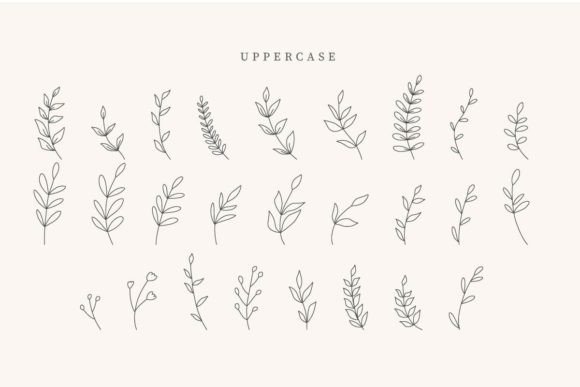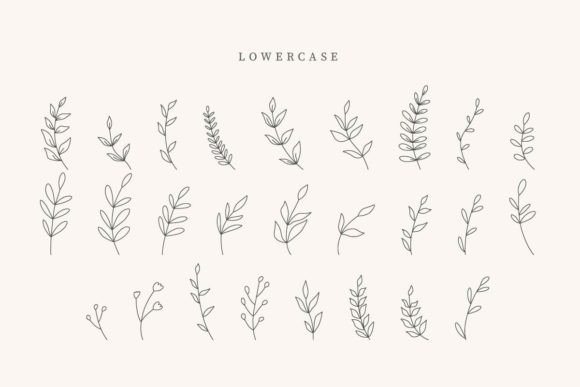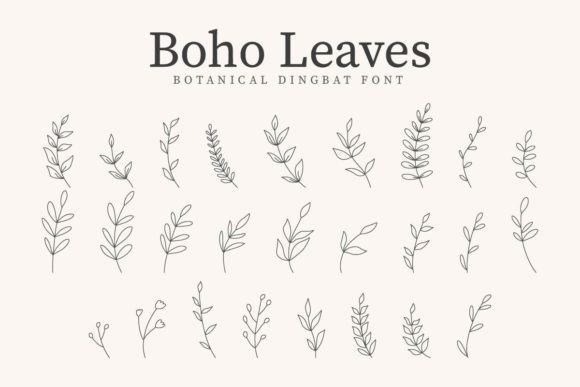
Unleash Your Inner Boho Chic with Boho Leaves Font
Have you ever found yourself rummaging through a vintage market, surrounded by lush greenery and the sweet scent of flowers, feeling inspired by the beauty of nature? That’s exactly the feeling you’ll want to evoke with your next creative project, and that’s where the Boho Leaves Font comes in.
This stunning botanical dingbat font is perfect for adding a touch of whimsy and romance to your designs. Whether you’re crafting wedding invitations, stickers, logos, or posters, the Boho Leaves Font is sure to bring your vision to life. As a designer, you know how valuable it is to have a versatile font that can elevate your projects and set them apart from the rest.
With the Boho Leaves Font, you’ll have endless possibilities for creating unique and eye-catching designs that showcase your personal style. So why settle for a generic font when you can add a touch of bohemian charm to your projects with the Boho Leaves Font?
Boho Leaves Font Key Features
- Unique Characteristics: Whimsical, hand-drawn design with intricate leaf details and a bohemian flair, perfect for adding a touch of elegance and sophistication to various design projects
- Language Support: Supports a wide range of languages, including Latin, Greek, Cyrillic, and more, making it a versatile font for international design projects
- Style Variations: Available in 3 different styles, including Regular, Bold, and Italic, to provide designers with flexibility and creative freedom
Designer Review: Boho Leaves Font
Overall, I think Boho Leaves Font has a certain charm to it, with its intricate and organic design elements ✨. The font’s leaf-inspired details add a touch of whimsy and playfulness, making it suitable for projects that require a bohemian or nature-inspired aesthetic.
The font’s versatility is also a plus, as it comes in various weights and styles, allowing designers to experiment with different looks and feels ✨. The OpenType features, such as ligatures and swashes, add an extra layer of personality to the font, making it stand out in creative projects.
However, there are some limitations to consider ⚠️. The font’s readability can be a concern, particularly in smaller text sizes. The intricate details and ornaments can make it difficult to distinguish between certain letters, which may affect the font’s usability in body text or headlines.
Conclusion
While Boho Leaves Font has its strengths and can be a great addition to a designer’s toolkit, it’s essential to weigh its limitations and consider the project’s specific needs and requirements.
- Strengths: Whimsical design, versatile, OpenType features
- Weaknesses: Readability concerns, large file size
The Boho Leaves Font is perfect for:
- Floral and garden-themed designs
- Whimsical and eclectic branding
For best results, pair the Boho Leaves Font with natural textures and earthy colors.